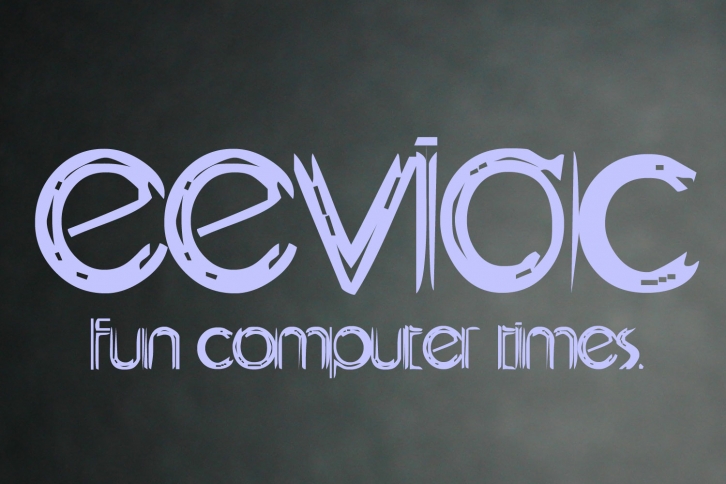
Eeviac is a distressed, technology-inspired display font that looks great in a variety of design projects. It is perfect for any branding project such as logos, t-shirt printing, creative products, and more. It will look extraordinary in a variety of contexts.